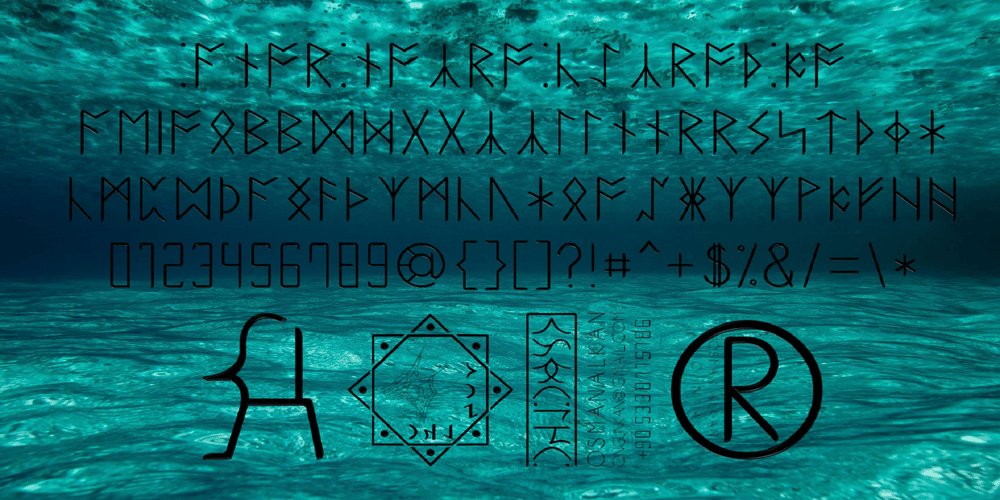
Ongunkan Runic
Ongunkan Runic font
Ongunkan Runic Font Family was designed by Osman Nuri ALKAN and published by Runic World Tamgacı. Ongunkan Runic contains 1 styles and family package options. It is necessary to keep the memories of our ancestors alive. Although the languages and cultures of the past societies were different, in my eyes the ancestor of our humanity is. Having to experience everything in that world, no matter where in the world it is. This font is a Runic member. It is a kind of variety that belongs to different geographical regions.